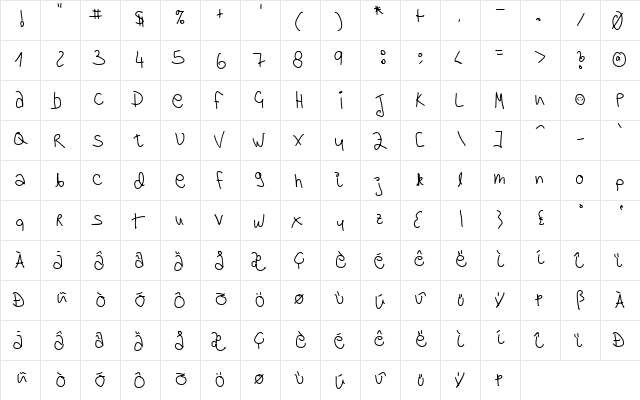
Kulterin Maskpan Regular
Design Context for Kulterin Maskpan Typeface
Kulterin Maskpan is a composed and adaptable typeface that performs quietly and consistently across a wide range of design contexts.